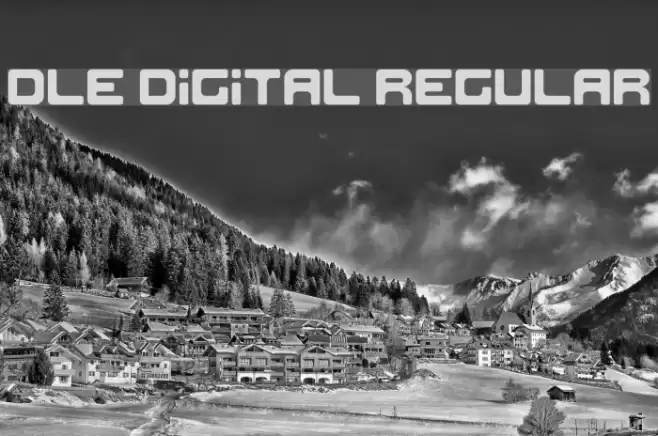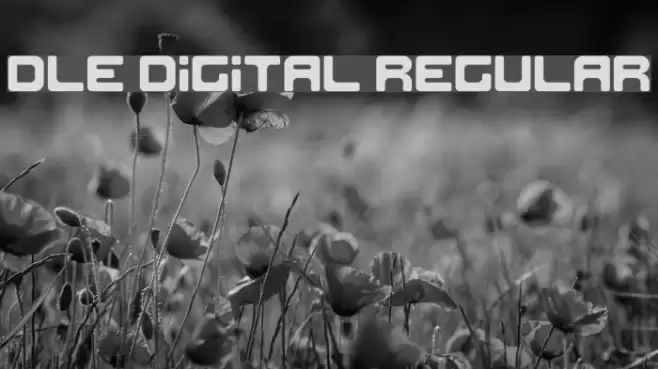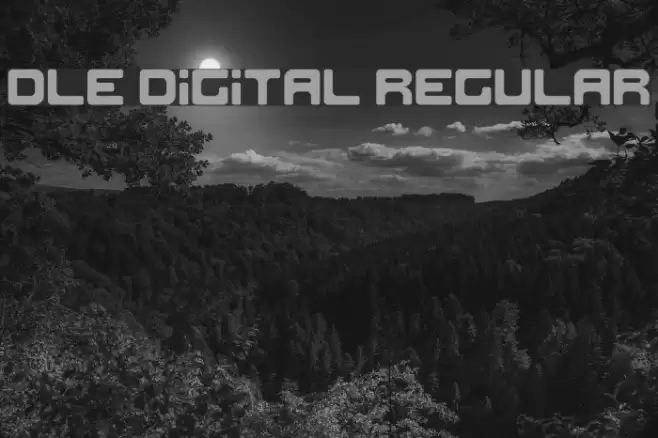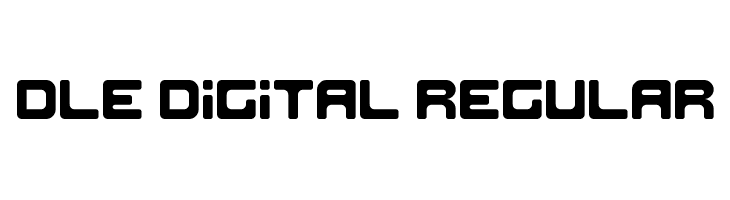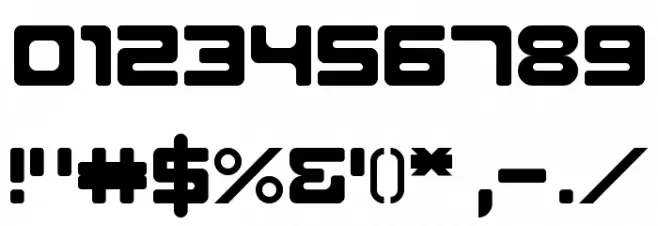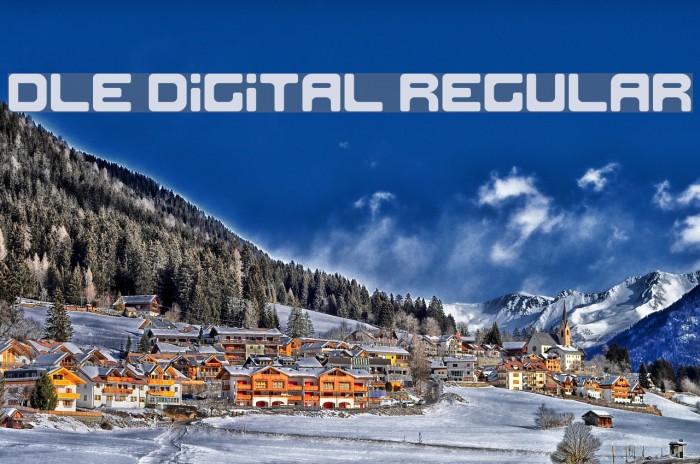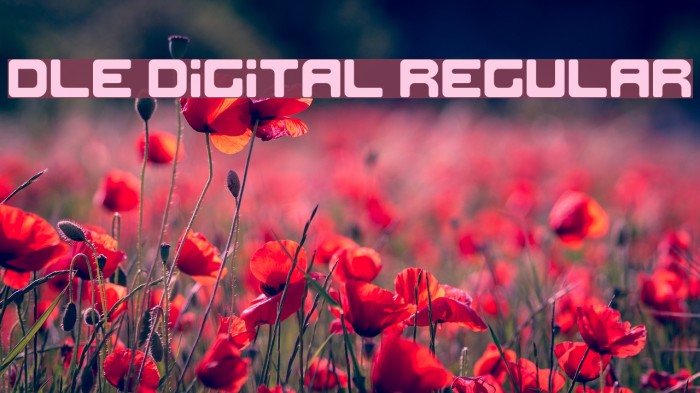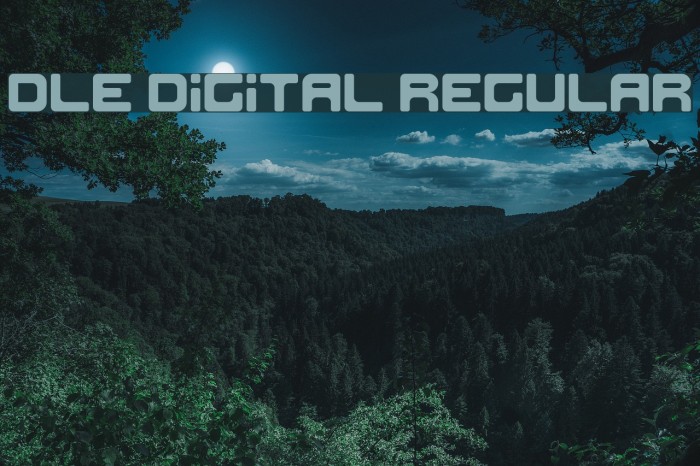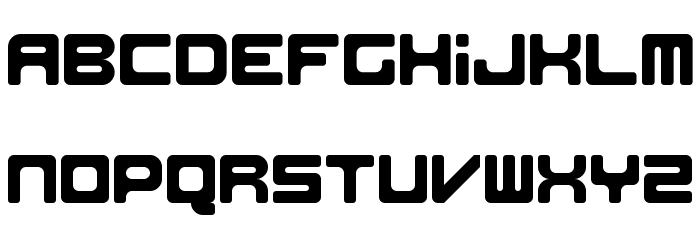
DLE Digital Regular Font
DLE Digital Regular Description
This font features a bold, futuristic design with rounded edges and a geometric structure. The characters are uniform in height, providing a clean and cohesive look. The uppercase and lowercase letters share similar shapes, enhancing the font's modern appeal. The numerals and special characters maintain the same stylistic approach, ensuring consistency across all elements. The font's distinct style makes it ideal for digital and tech-related projects, offering a sleek and contemporary aesthetic.
A bold, futuristic font with rounded edges and geometric shapes from Uncategorized fonts.
- Proposed Projects: Ideal for tech branding, digital interfaces, video game design, and futuristic-themed posters.
- Use Case: Headlines, Logos, Digital interfaces